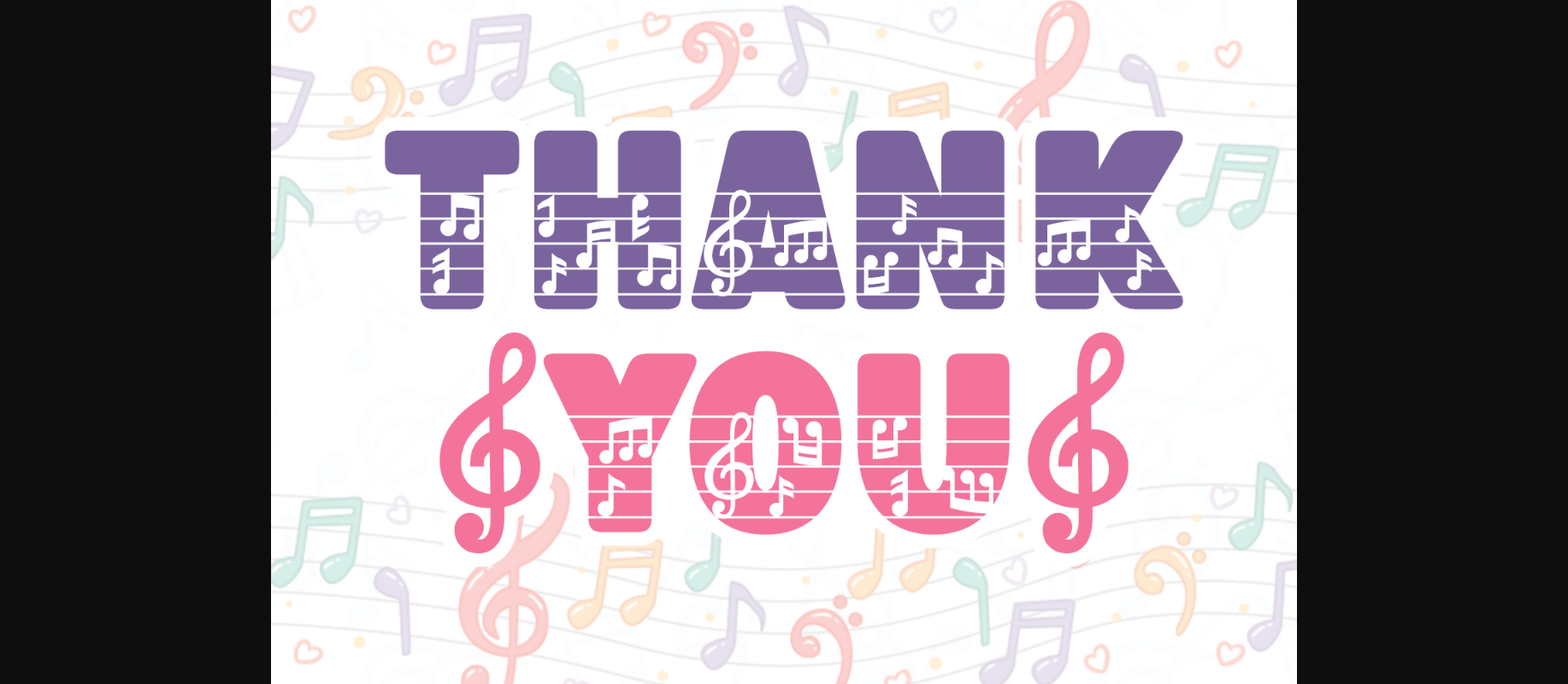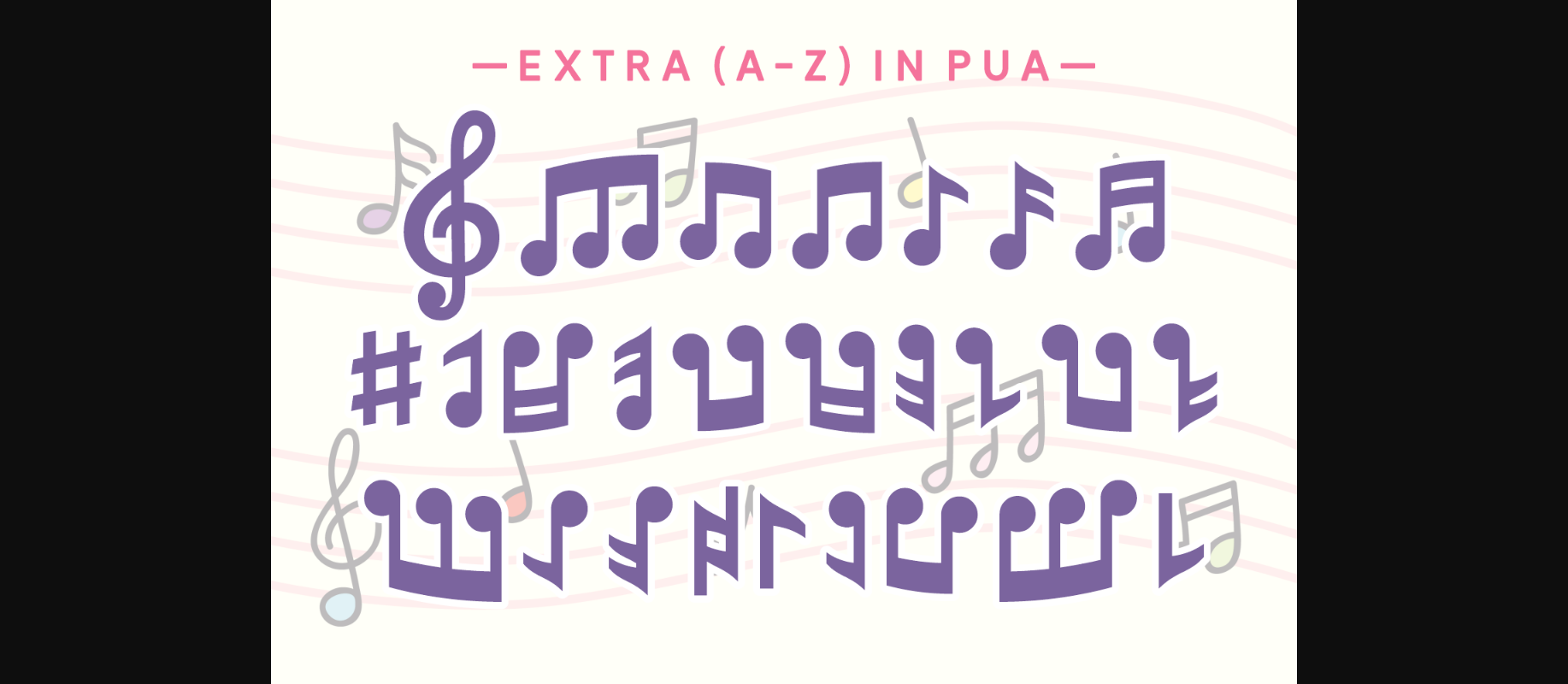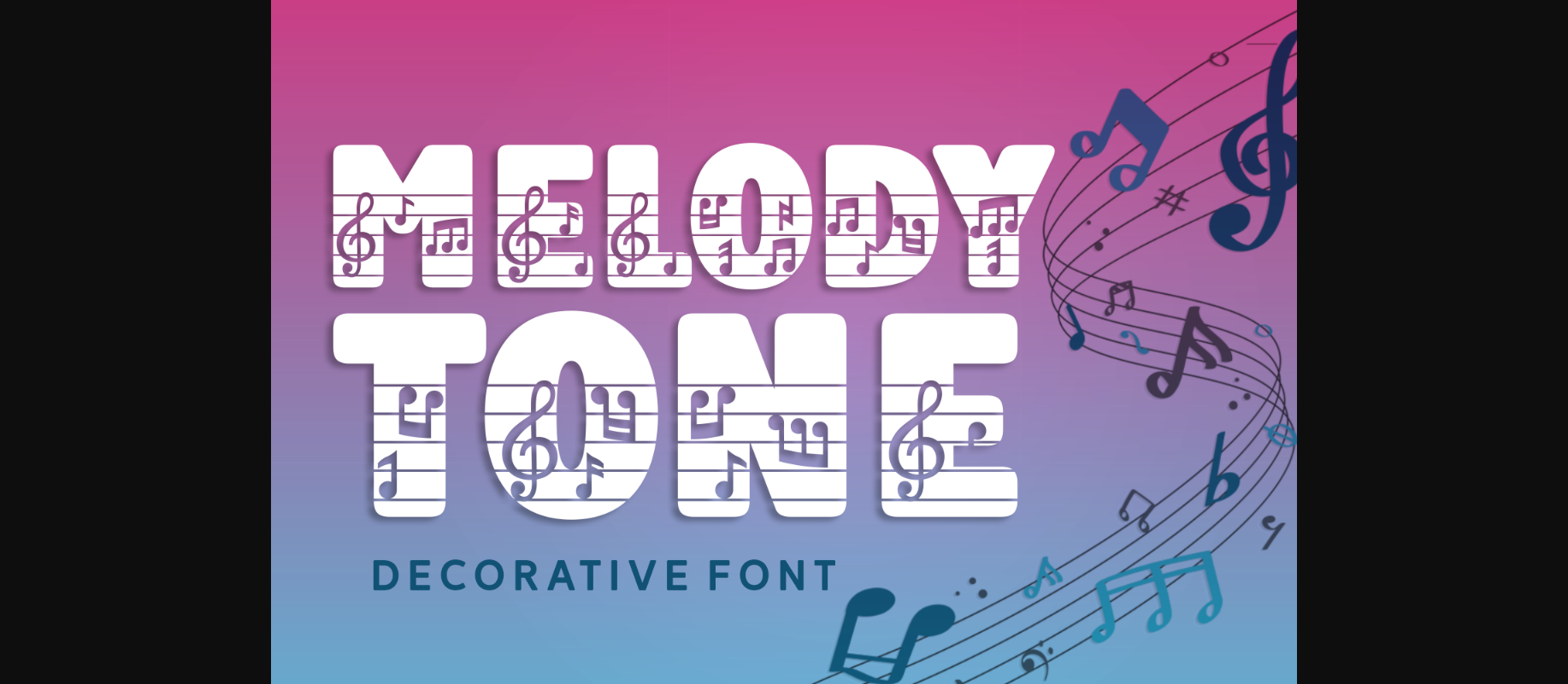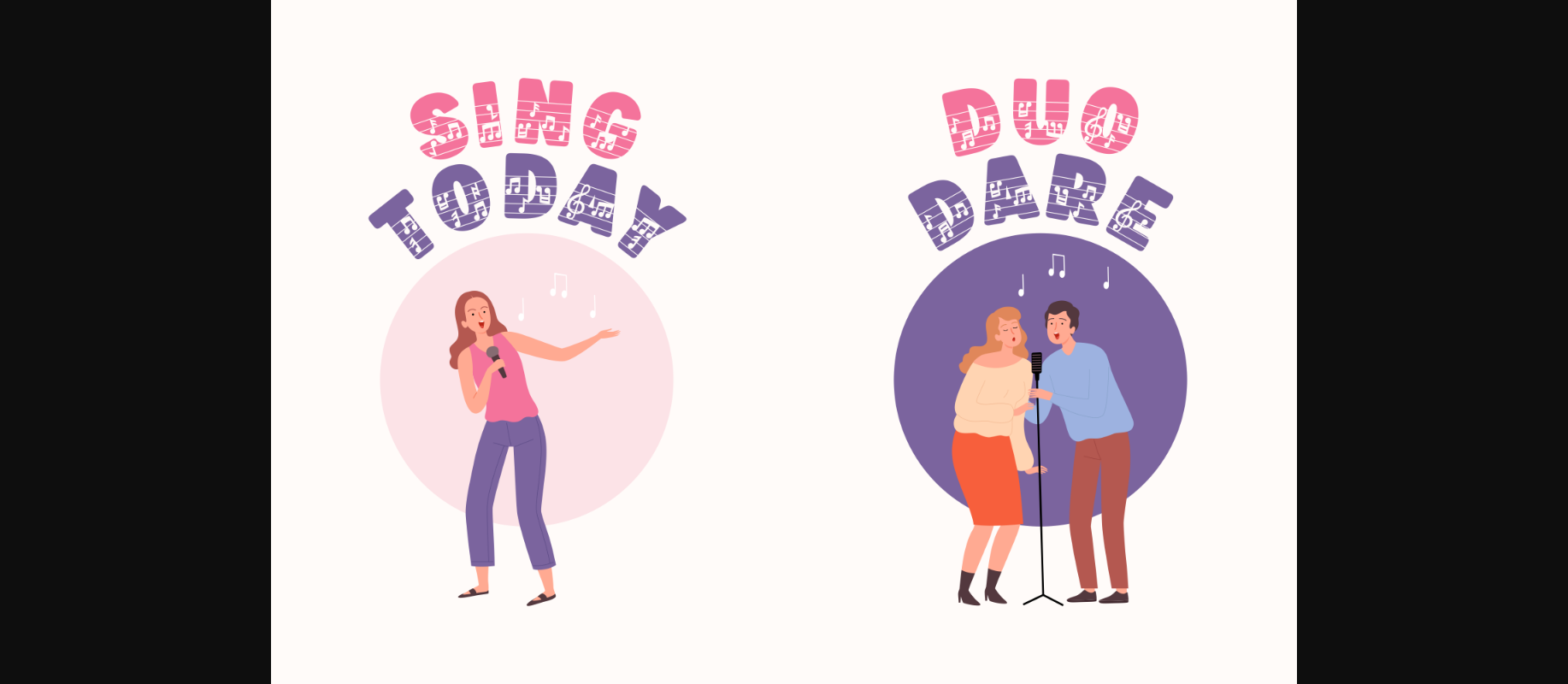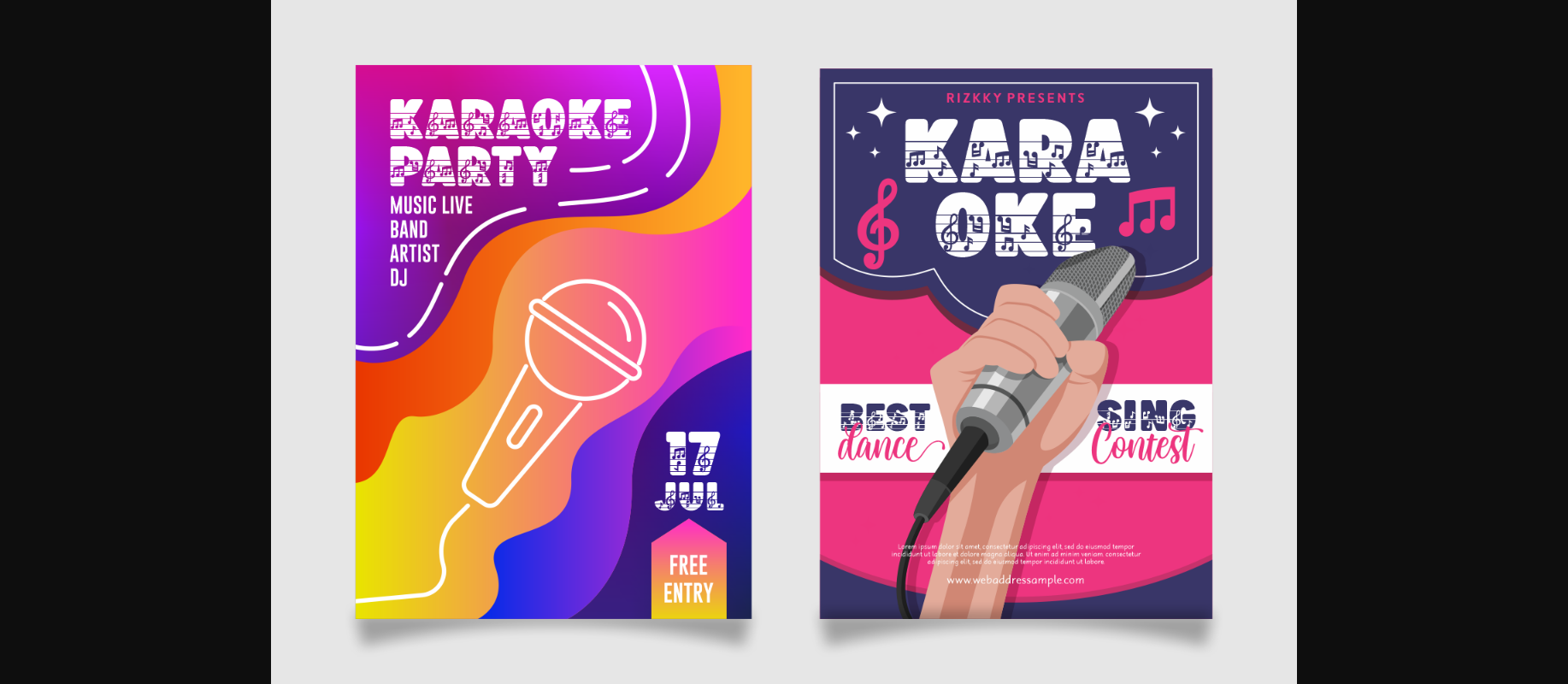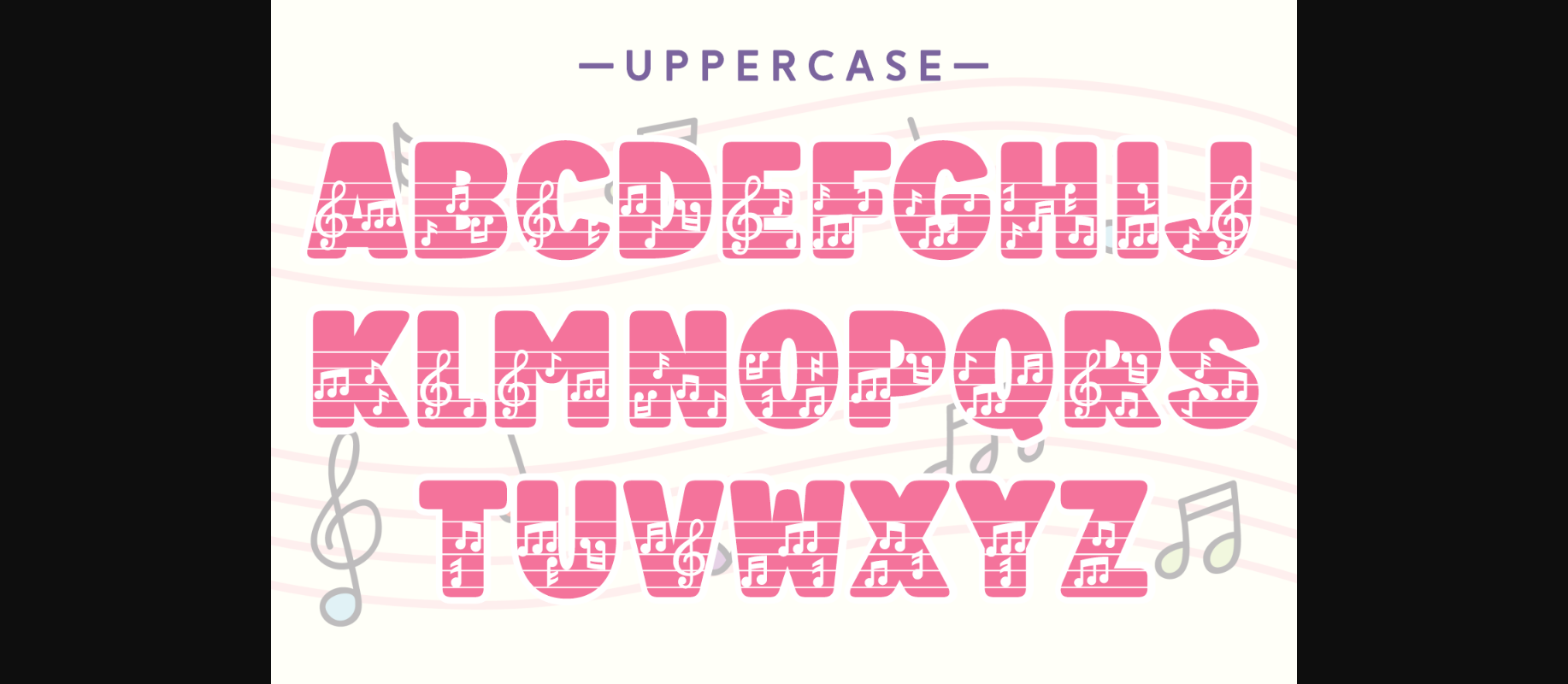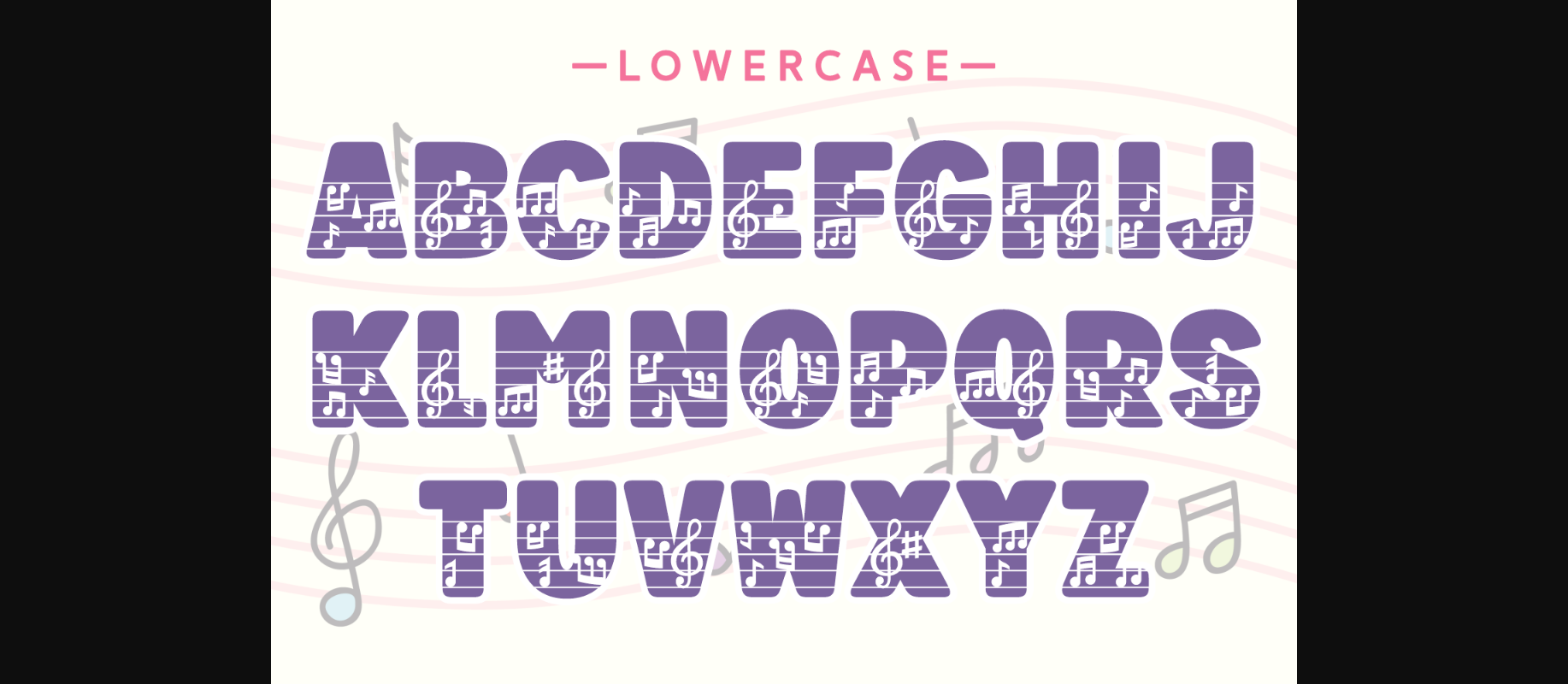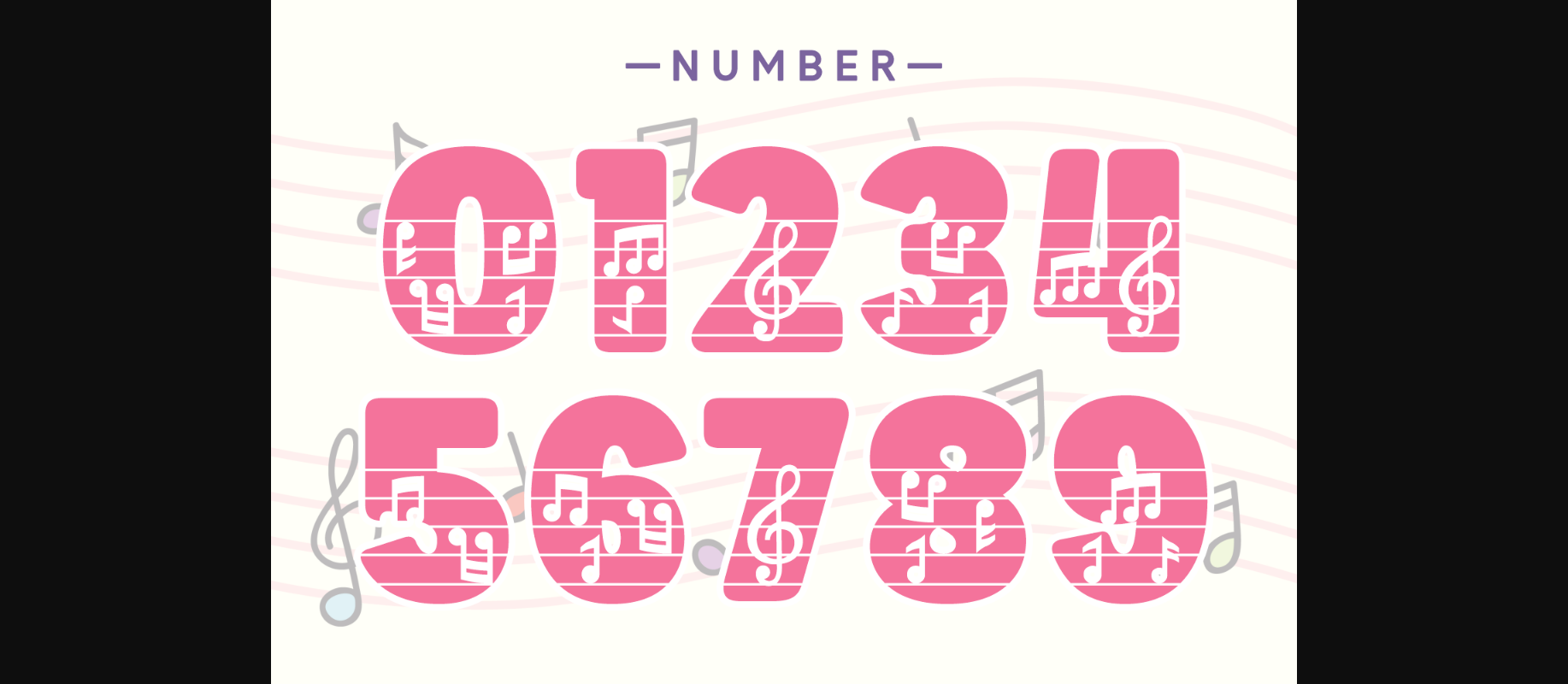
Melody Tone Font
About Melody Tone Font
Melody Tone is a gorgeous decorative font, that fits incredibly well to this time of the year. No matter the topic, this font will be an incredible asset to your fonts’ library, as it has the potential to elevate any creation. This font is PUA encoded which means you can access all of the amazing glyphs and ligatures with ease!